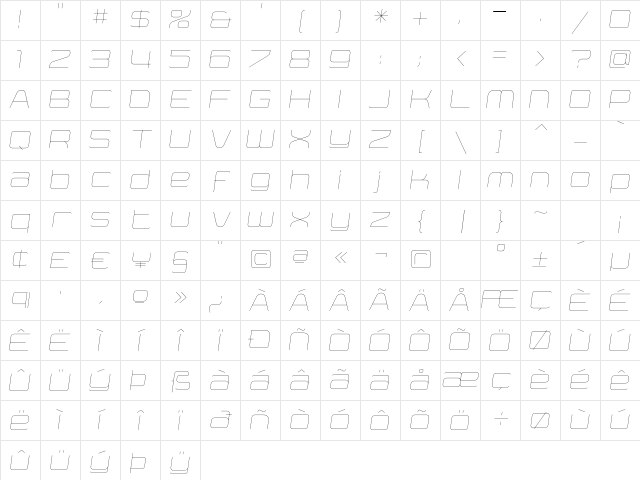
Yumi Oblique UltraLight
Foundry: Neil Summerour (Positype)
Designer: Neil Summerour (Positype)
Design Context for Yumi Oblique
Yumi Oblique is a composed and adaptable typeface that performs quietly and consistently across a wide range of design contexts. The slanted form adds forward momentum and visual energy. Its slender proportions lend an understated elegance to any composition.
Pro Tip: Use Yumi Oblique for emphasis, pull quotes, and subheadings where its slanted energy can add rhythm to the layout.